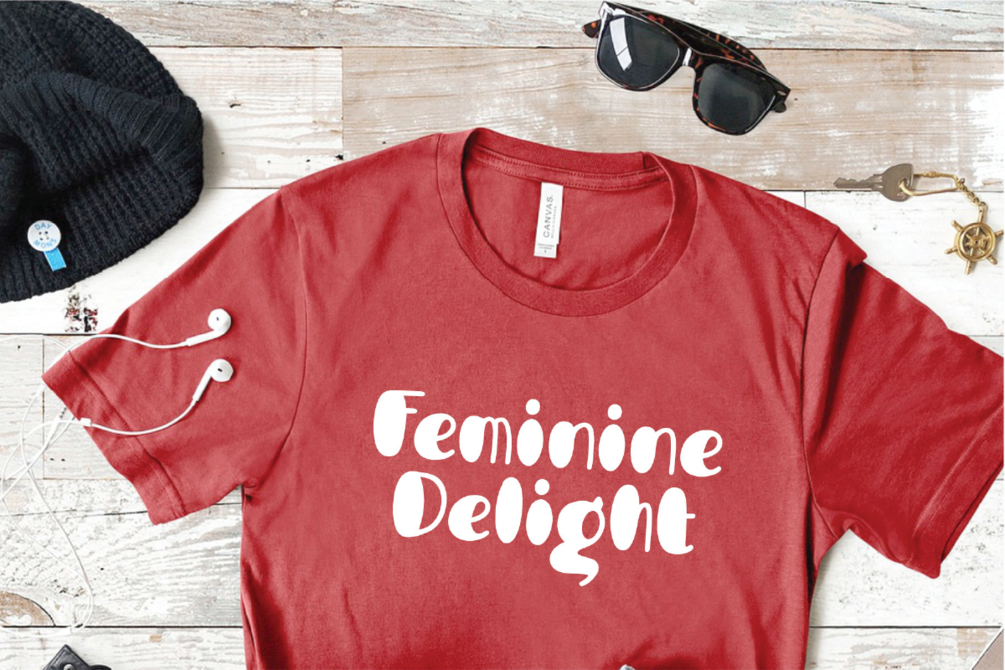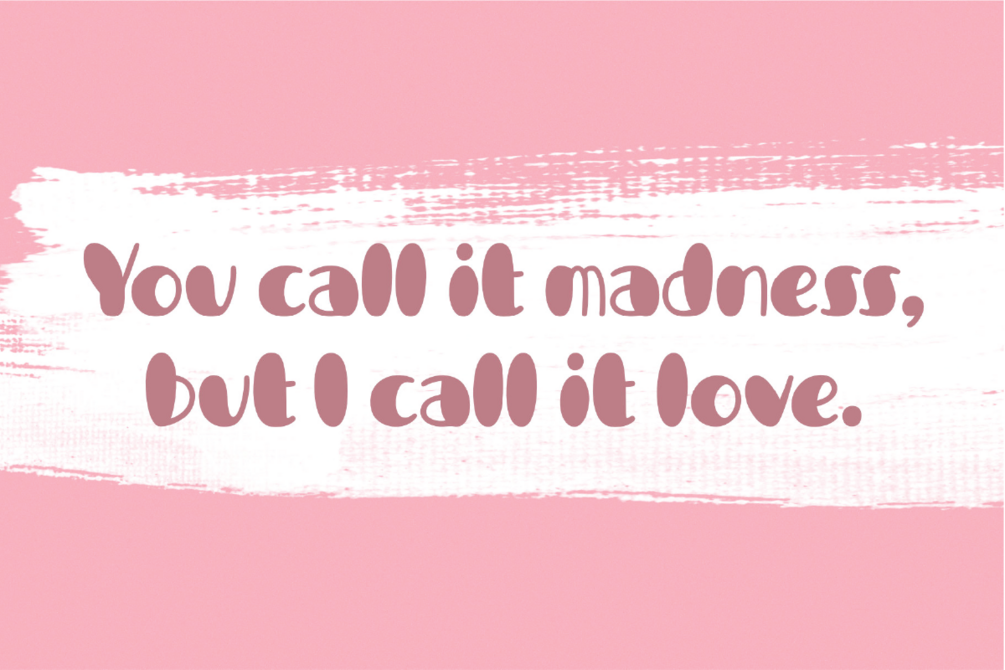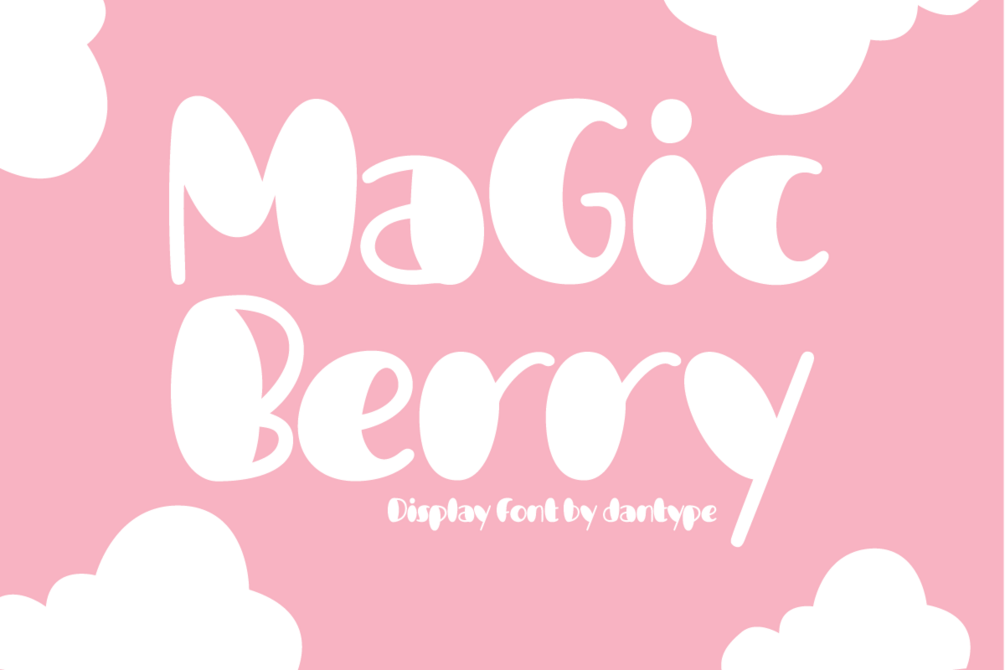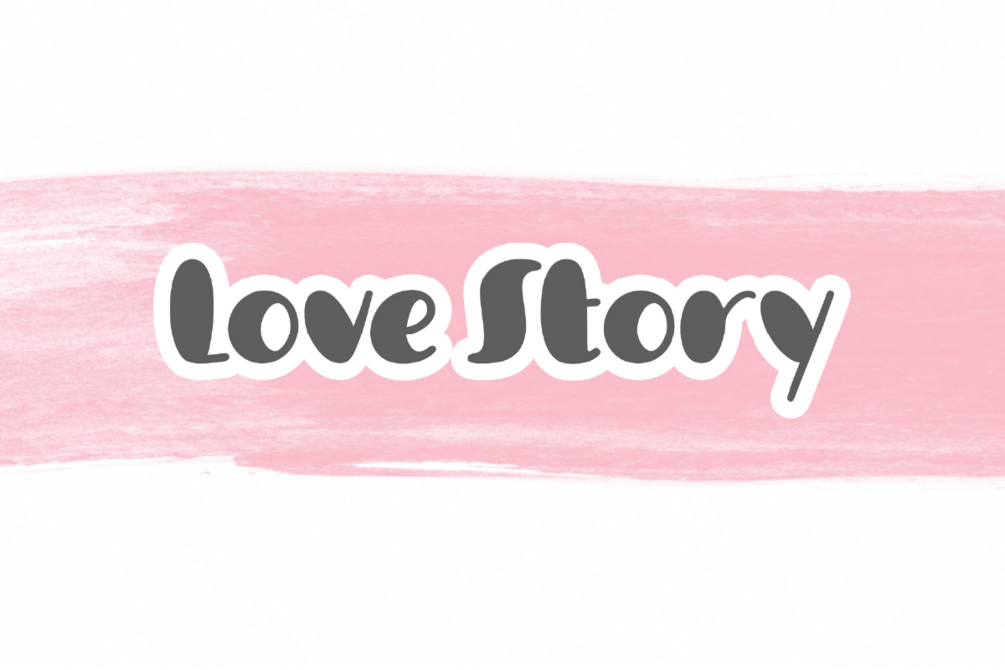
Magic Berry
Magic Berry Display font. This font would be perfect for photography, watermarks, social media posts, advertisements, logos & branding, invitations, product design, labels, stationery, product packaging, special events, and other projects.